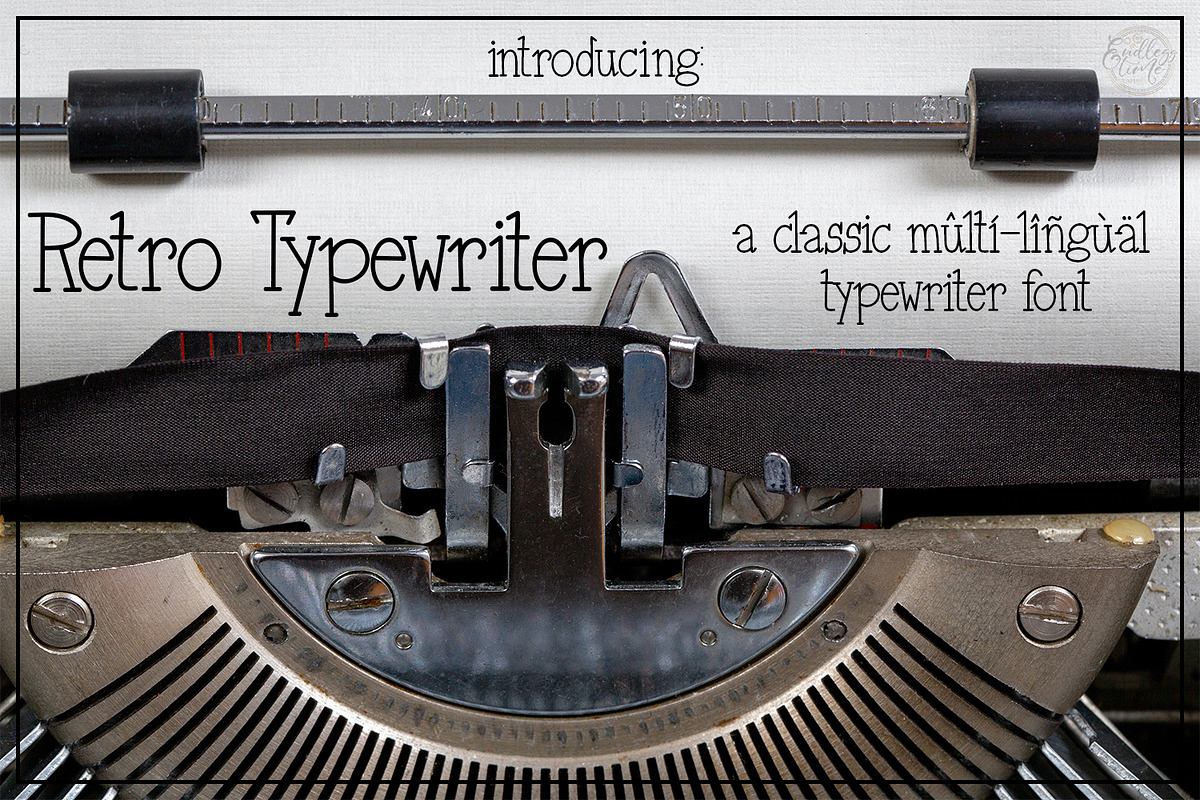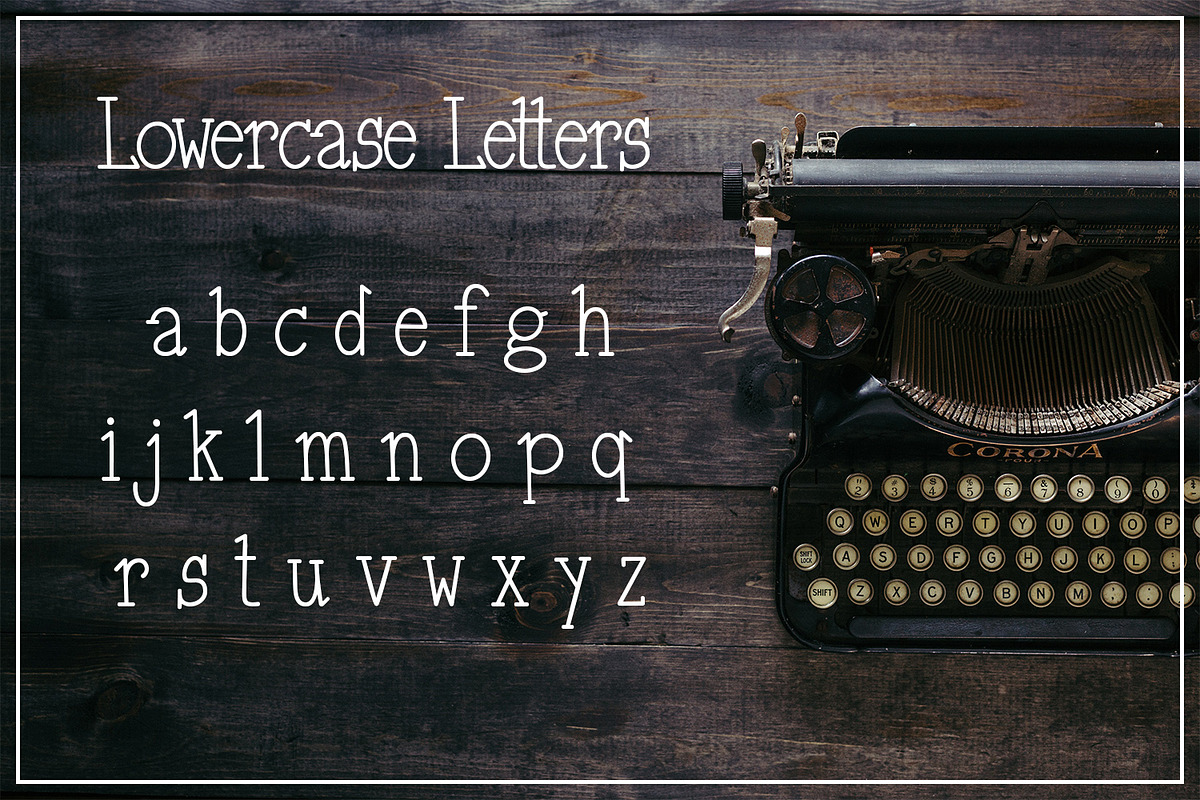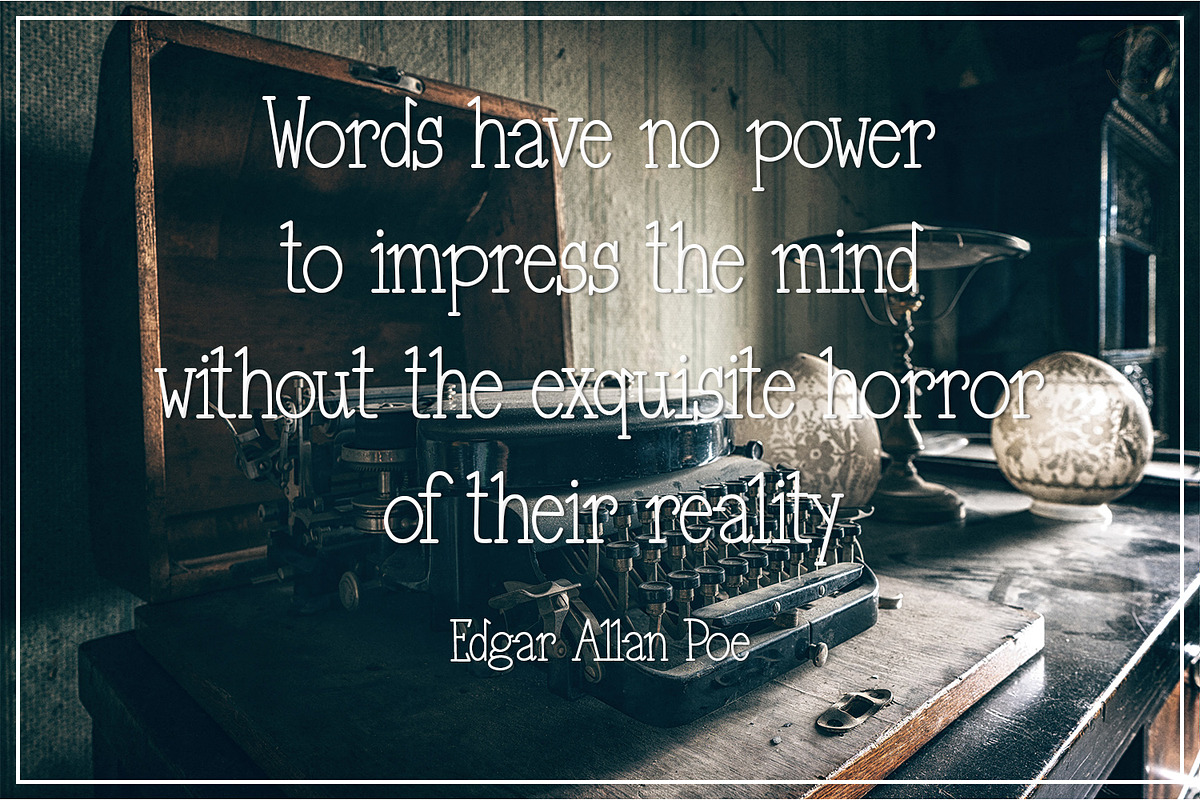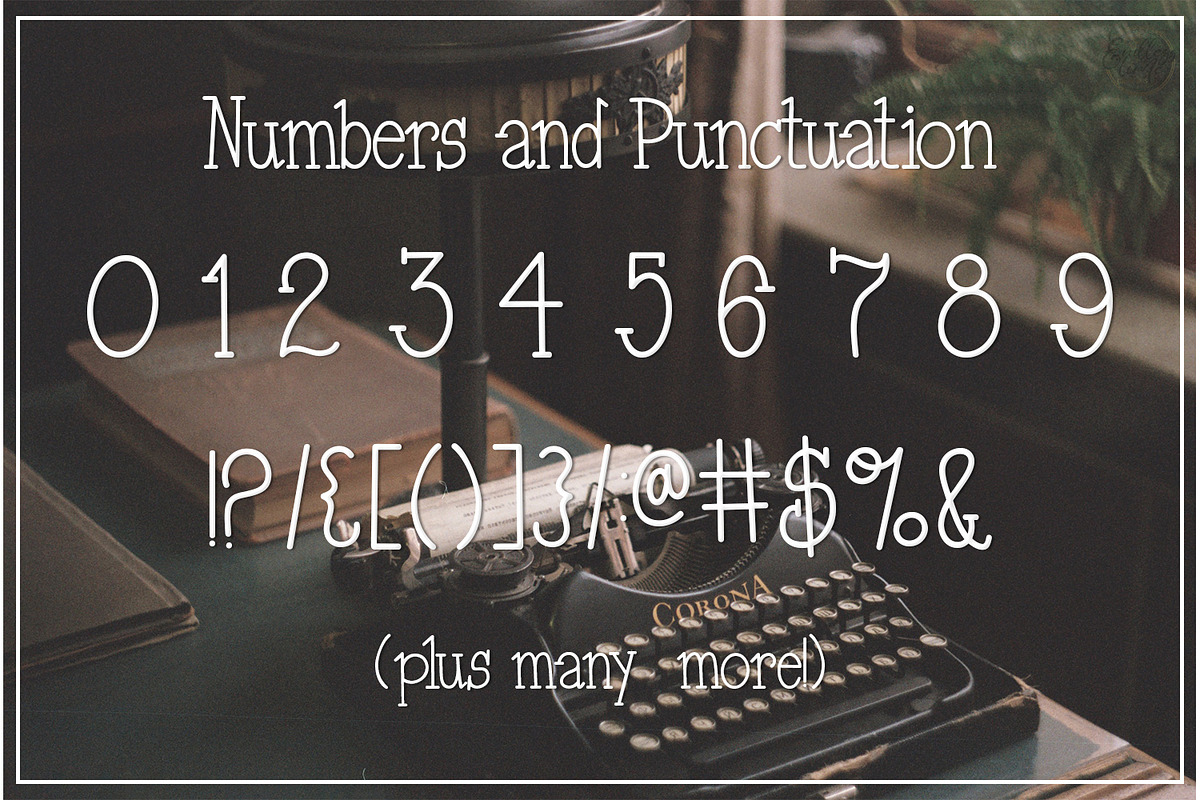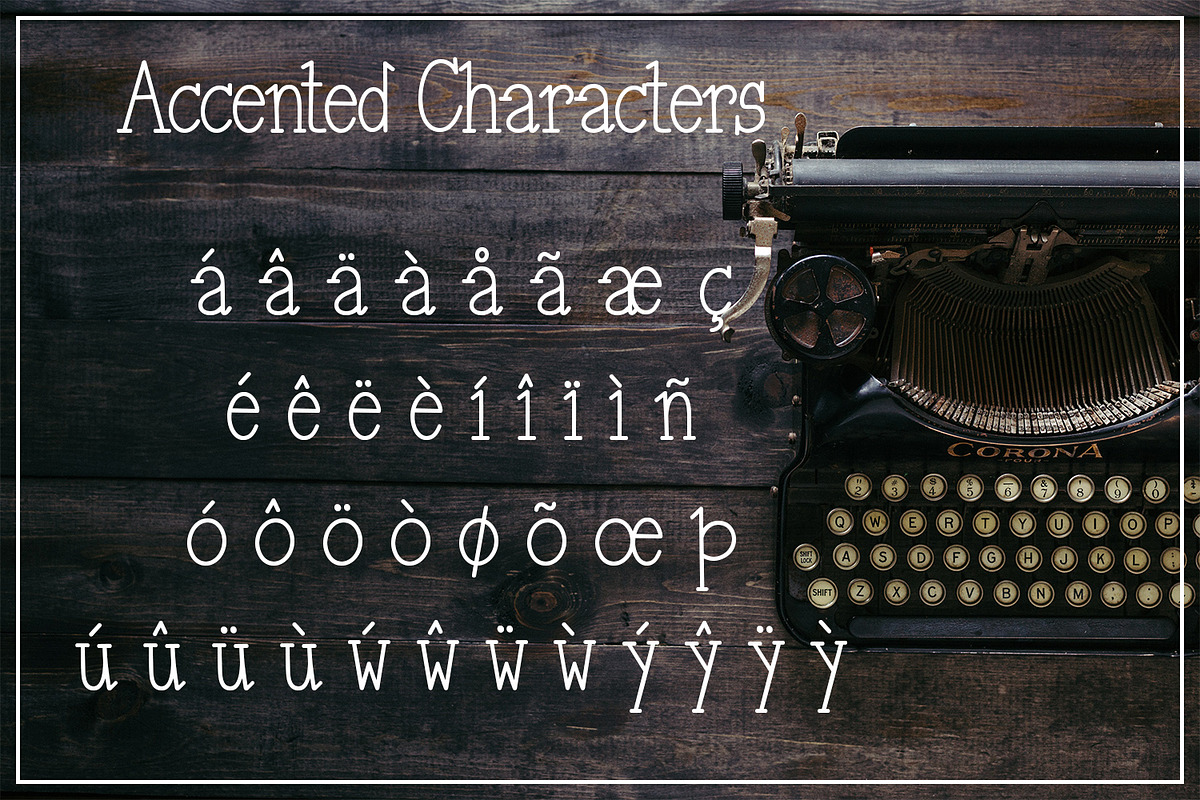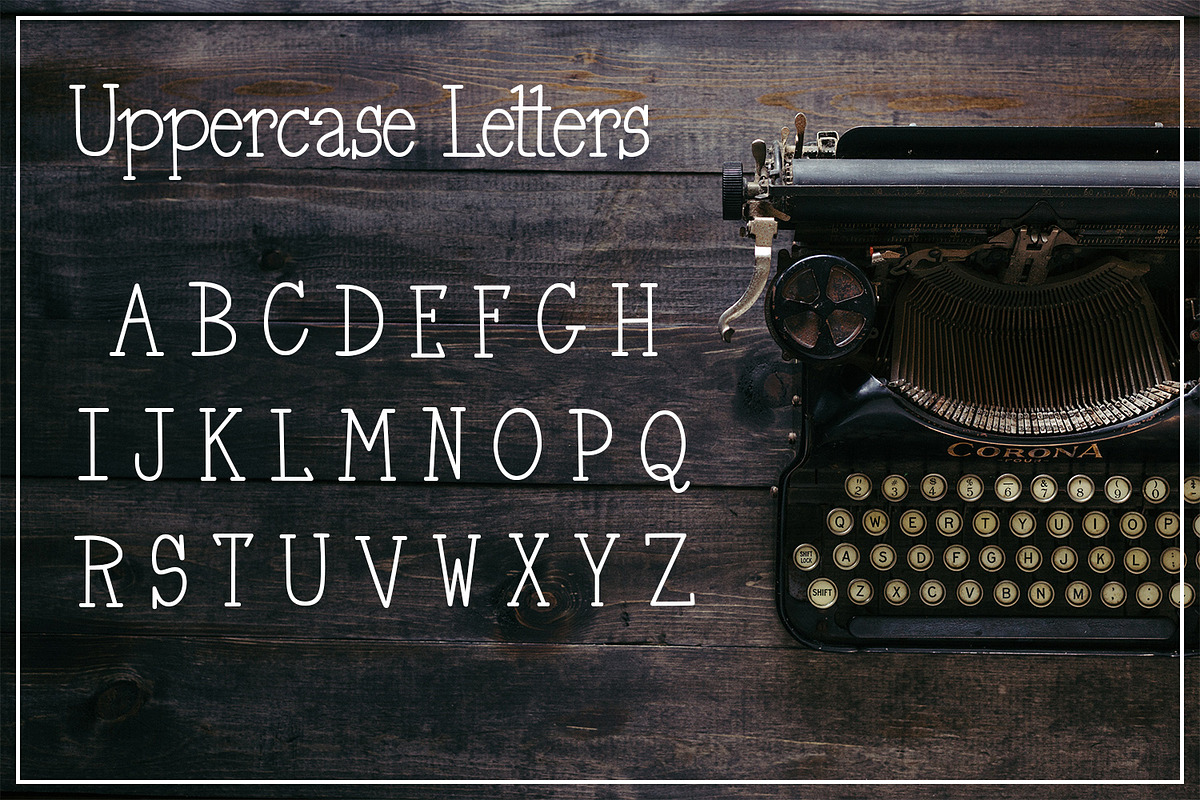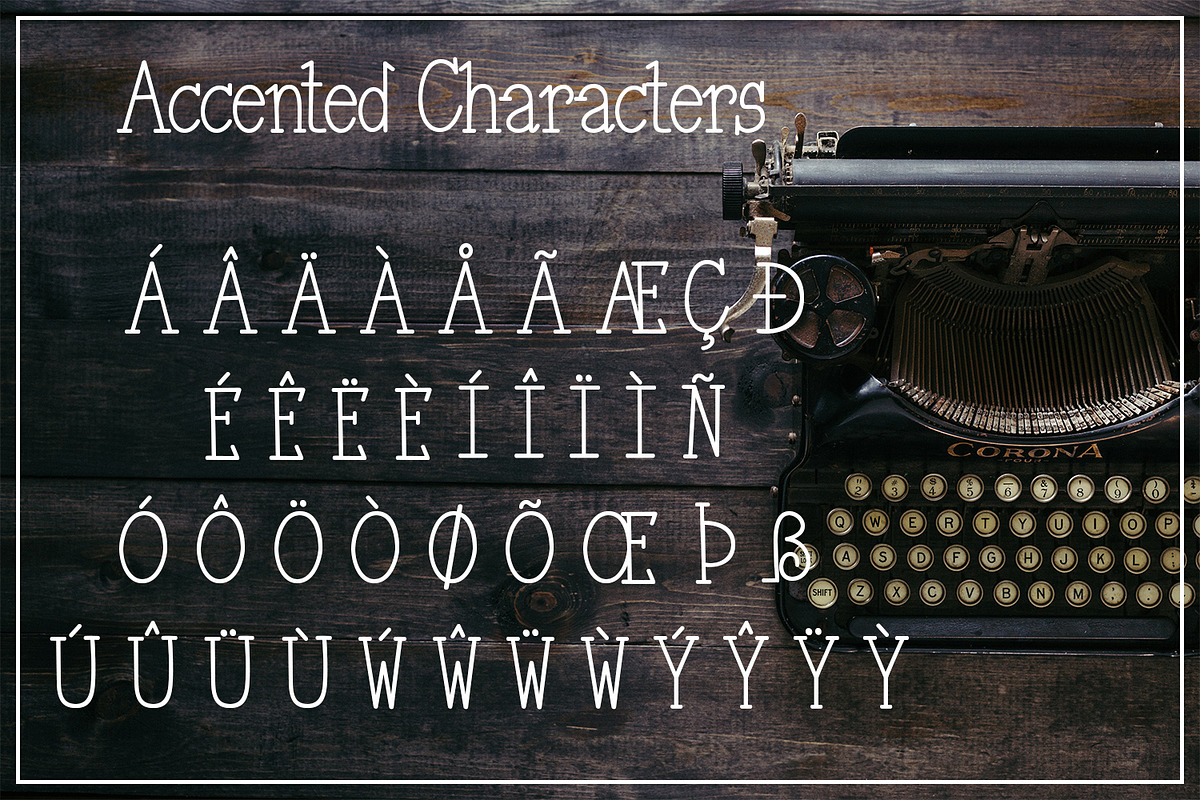
Retro Typewriter - A Classic Font
Introducing Retro Typewriter Font:
Add a touch of nostalgia and vintage charm to your designs with Retro Typewriter, a meticulously crafted hand-written font that takes inspiration from classic typewriters of yesteryear. This versatile typeface is perfect for giving your projects a retro twist, whether you're designing posters, invitations, logos, or anything in between.
Complete Character Set: This font boasts an extensive character set, covering both uppercase and lowercase letters, numbers, and a wide range of punctuation marks. Every detail has been meticulously designed to capture the authentic look and feel of typewriter text.
Language Support: Retro Typewriter goes the extra mile to cater to diverse language needs. It includes diacritical marks and accented characters, allowing support for all Western European languages. Now you can effortlessly incorporate French, German, Spanish, and many more languages into your designs.
Vintage Appeal: The hand-written style of Retro Typewriter evokes a sense of nostalgia and authenticity. Its imperfect letterforms, uneven strokes, and subtle ink textures recreate the unmistakable charm of vintage typewriters, giving your designs a distinct retro flair
Versatile Applications: With Retro Typewriter, the possibilities are endless. Use it to create eye-catching headlines, attention-grabbing logos, or evoke a sense of old-world elegance in your branding materials. It's also ideal for replicating typewriter text effects or infusing your designs with a hint of vintage aesthetic.
Unleash your creativity and transport your audience to a bygone era with Retro Typewriter Font. Its timeless appeal and comprehensive character set make it an indispensable addition to any designer's toolkit. Download this font today and embark on a typographic journey that pays homage to the golden age of typewriters.